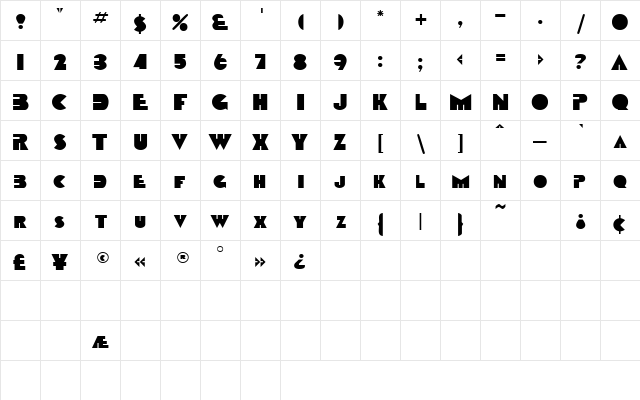
CyberSCapsSSK Regular
Design Context for CyberSCapsSSK Typeface
CyberSCapsSSK channels digital-age aesthetics through its sharp, structured letterforms — ideal for brands that want to signal innovation.
Pro Tip: Use CyberSCapsSSK in combination with a neutral sans for body text. Let it define the brand voice in headlines while keeping reading comfortable elsewhere.